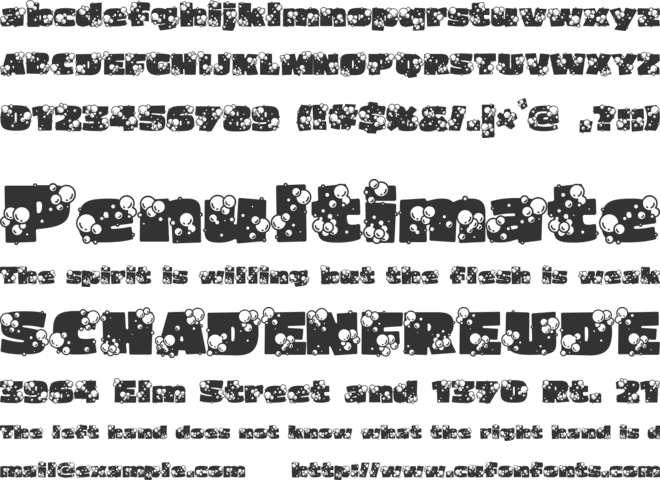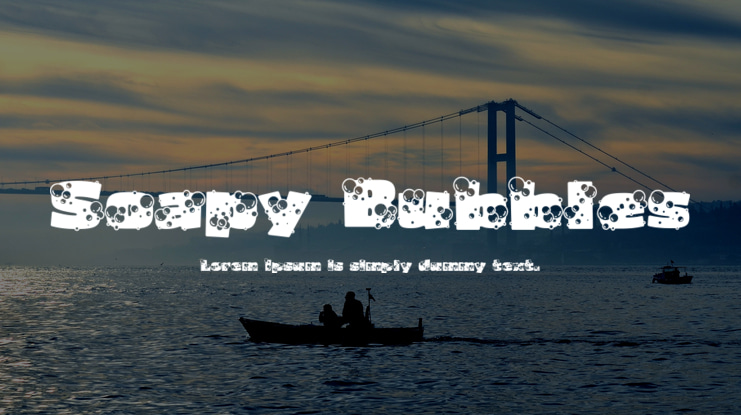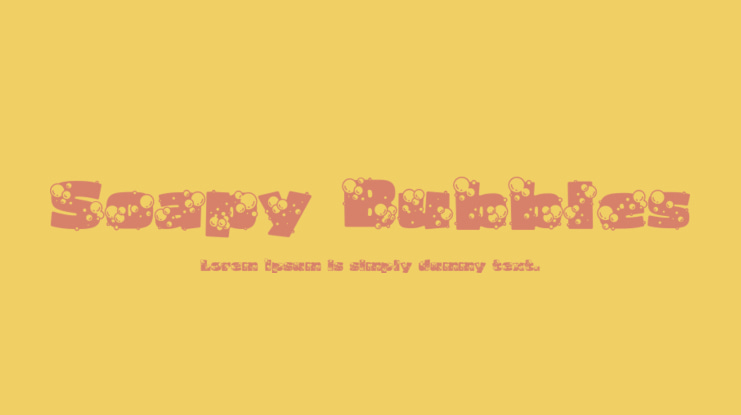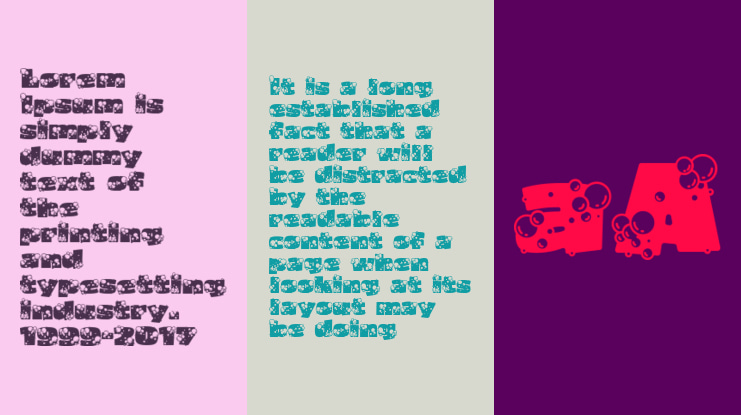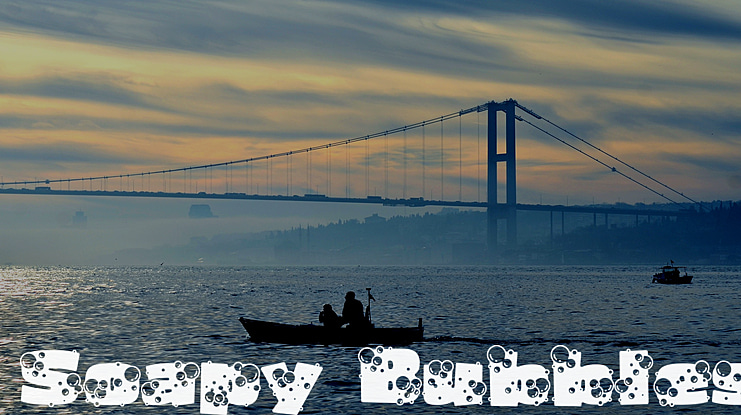
Soapy Bubbles Font
Full version has the following OpenType Features:
- Contextual alternates*
- Accented characters
- Fractions
- Ligatures / Discretionary ligatures
* If you're unfamiliar with contextual alternates, they make the typed word look a little more organic with letters substituted for alternates. For example, typing two of the same letter/number will produce different versions of that letter glyph.